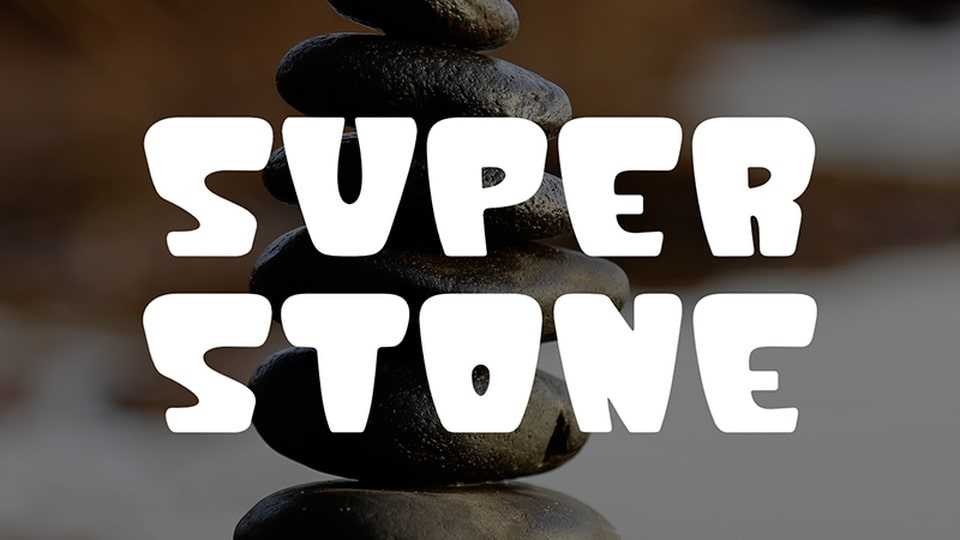
Download Super Stone font, a playful and chunky hand-crafted typeface that brings boldness and fun to your designs. Super Stone features thick, rounded letterforms with a lively, hand-drawn feel.